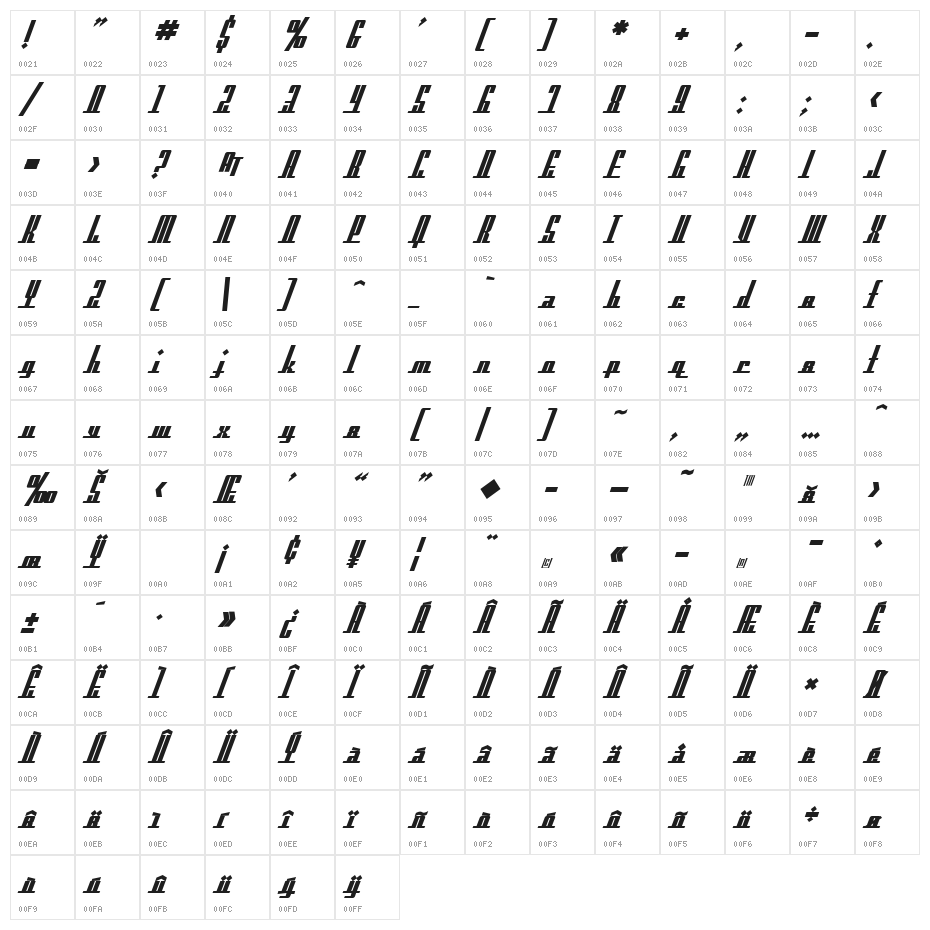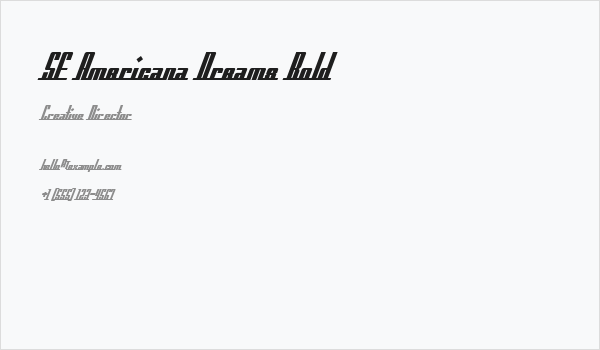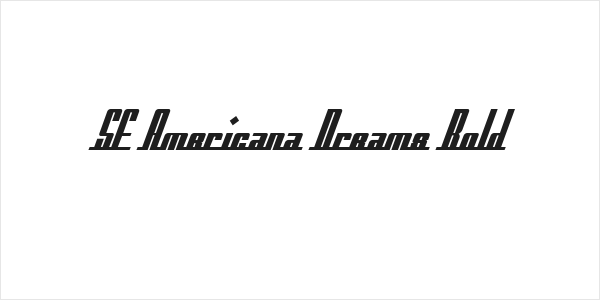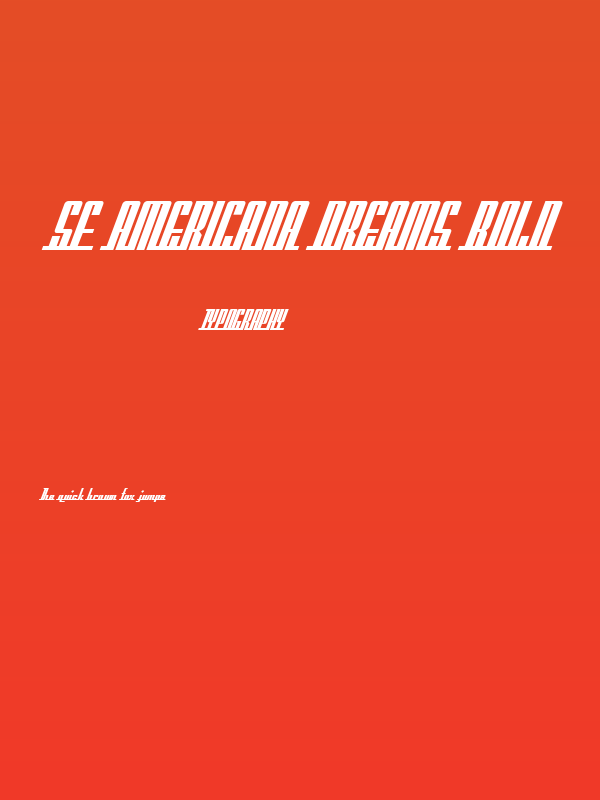
SF Americana Dreams Bold Font
SF Americana Dreams Bold Description
This font features a bold and dynamic style with a strong slant, giving it a sense of motion and energy. The characters are tightly spaced and have a condensed width, enhancing the compact and impactful appearance. The strokes are thick and consistent, providing a high contrast that makes the text stand out prominently. The uppercase and lowercase letters maintain a uniform height, contributing to a cohesive and streamlined look. The font's angular design and sharp edges add a modern and edgy feel, making it suitable for attention-grabbing headlines and logos. The inclusion of special characters and numbers ensures versatility for various design needs.
| Proposed Projects | Ideal for sports branding, dynamic posters, edgy logos, and modern advertising campaigns. |